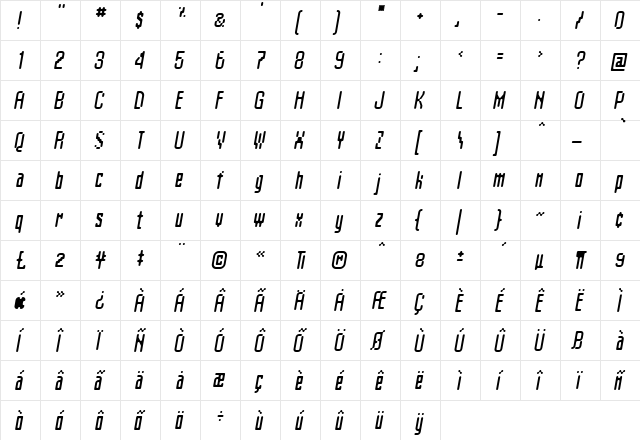
Matica Italic
Design Context for Matica Typeface
Matica takes a measured approach to typography — its balanced proportions and neutral character make it a reliable workhorse for both digital and print work. The slanted form adds forward momentum and visual energy.